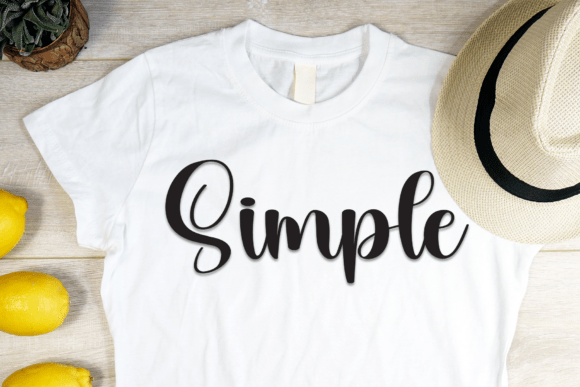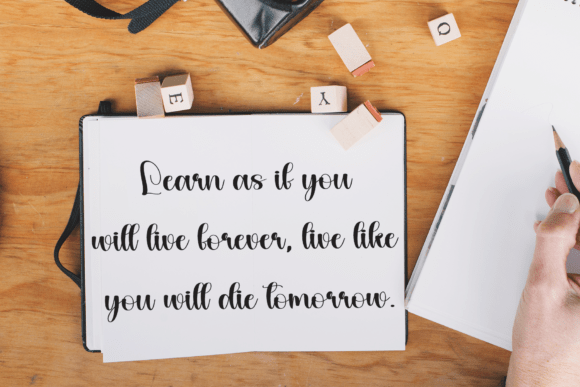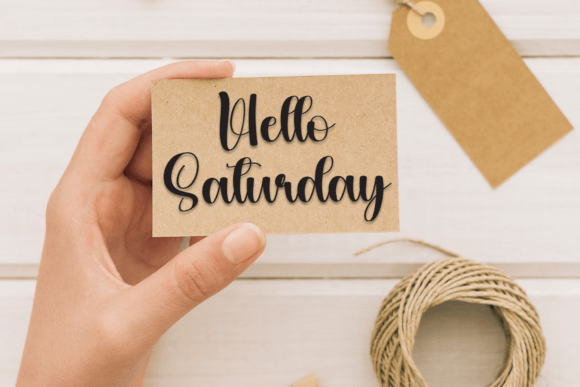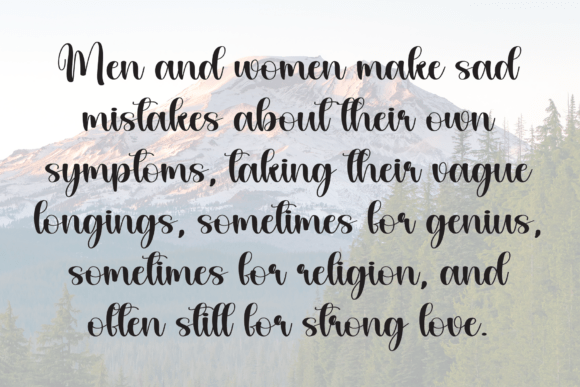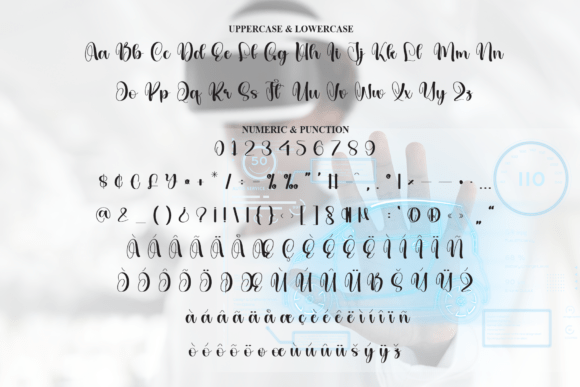
Introducing Digital: The Ultimate Stylish Handwritten Script Font
In the world of digital design, typography plays a crucial role in conveying the tone and personality of a brand or project. A well-crafted font can elevate your creative work, making it more engaging, memorable, and impactful. This is where Digital, a stunning handwritten script font, comes into play. With its unique blend of elegance and playfulness, Digital is perfect for designers and crafters looking to add a personal touch to their work.
The Characteristics of Digital Font
Digital is a stylish handwritten script font that captures the essence of elegance and playfulness in every stroke. Its flowing curves and natural rhythm make it an ideal choice for a wide range of creative projects, from invitations and branding to social media and digital content. The font’s design is characterized by:
- Elegant curves: Digital features smooth, flowing curves that give it a sophisticated and refined look.
- Playful touch: The font’s playful nature makes it perfect for projects that require a touch of whimsy and creativity.
- Natural rhythm: Digital’s natural rhythm makes it easy to read and understand, ensuring that your message is conveyed effectively.
Uses of Digital Font
Digital is a versatile font that can be used in a variety of creative projects, including:
- Invitations: Add a personal touch to your wedding invitations, birthday party invites, or any other special occasion with Digital’s elegant and playful design.
- Branding: Use Digital to create a unique and memorable brand identity that reflects your company’s personality and values.
- Social media: Elevate your social media content with Digital’s stylish and engaging design, making your posts stand out in a crowded feed.
- Digital content: Use Digital to create engaging and readable digital content, such as blog posts, articles, and e-books.
Benefits of Using Digital Font
Digital offers a range of benefits that make it an ideal choice for designers and crafters, including:
- Warmth: Digital’s elegant design brings warmth and personality to any project, making it more relatable and engaging.
- Sophistication: The font’s sophisticated look makes it perfect for projects that require a touch of luxury and refinement.
- Creativity: Digital’s playful nature inspires creativity and imagination, making it ideal for projects that require a unique and innovative approach.
Tips for Using Digital Font
To get the most out of Digital, here are some tips to keep in mind:
- Use it sparingly: Use Digital to highlight key messages or add emphasis to your content, rather than using it for long blocks of text.
- Pair it with other fonts: Experiment with pairing Digital with other fonts to create a unique and visually appealing design.
- Adjust the size and color: Adjust the size and color of Digital to suit your project’s requirements and ensure it integrates seamlessly with your design.
Digital is a stylish handwritten script font that offers a unique blend of elegance and playfulness. With its flowing curves and natural rhythm, it’s perfect for designers and crafters looking to add a personal touch to their work. Whether you’re creating invitations, branding, social media content, or digital content, Digital is an ideal choice. So why not give it a try and see how it can elevate your creative projects?